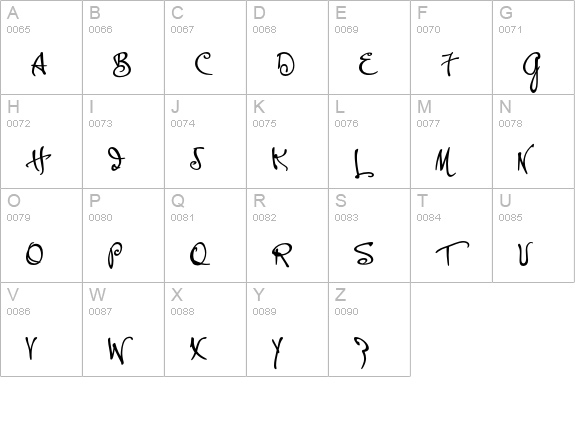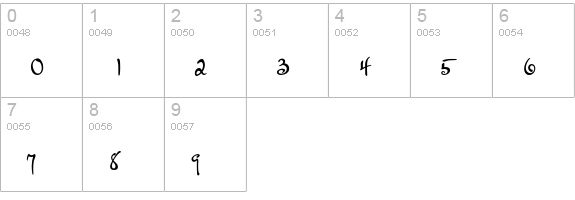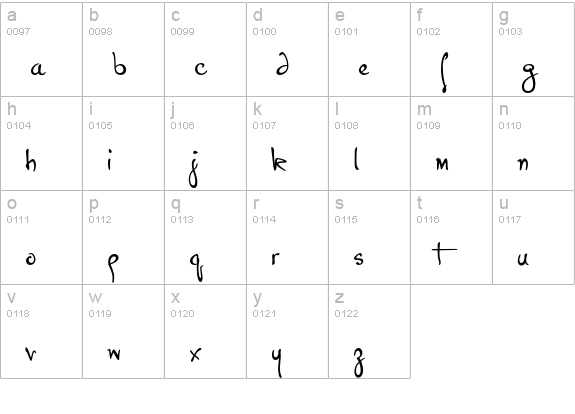
P22Hopper-Josephine Font Details
The P22Hopper-Josephine font is a stunning display typeface that effortlessly combines elegance with a touch of whimsy. Its intricate details and graceful curves make it a perfect choice for projects that require a unique and eye-catching design. This font draws inspiration from the iconic artist, Edward Hopper, and the timeless beauty of his work. It captures the essence of his paintings by evoking a sense of nostalgia and contemplation. The P22Hopper-Josephine font transports the viewer to a bygone era, where artistry and sophistication reigned supreme. With its fluid strokes and delicate proportions, this font effortlessly captures attention and adds a touch of sophistication to any design project. Whether used for headings, logos, or invitations, the P22Hopper-Josephine font is sure to make a lasting impression. One of the most remarkable aspects of this font is that it is freely available to download at FontsMarket.com. This means that designers and enthusiasts alike can access the P22Hopper-Josephine font without any cost. Its availability ensures that creativity knows no bounds, as anyone can experiment and play with this exquisite typeface. So, if you are looking to add a touch of elegance and artistic flair to your design, look no further than the P22Hopper-Josephine font. Its timeless appeal and free accessibility make it a must-have for any designer's toolkit. Download it today and let your creativity soar to new heights.